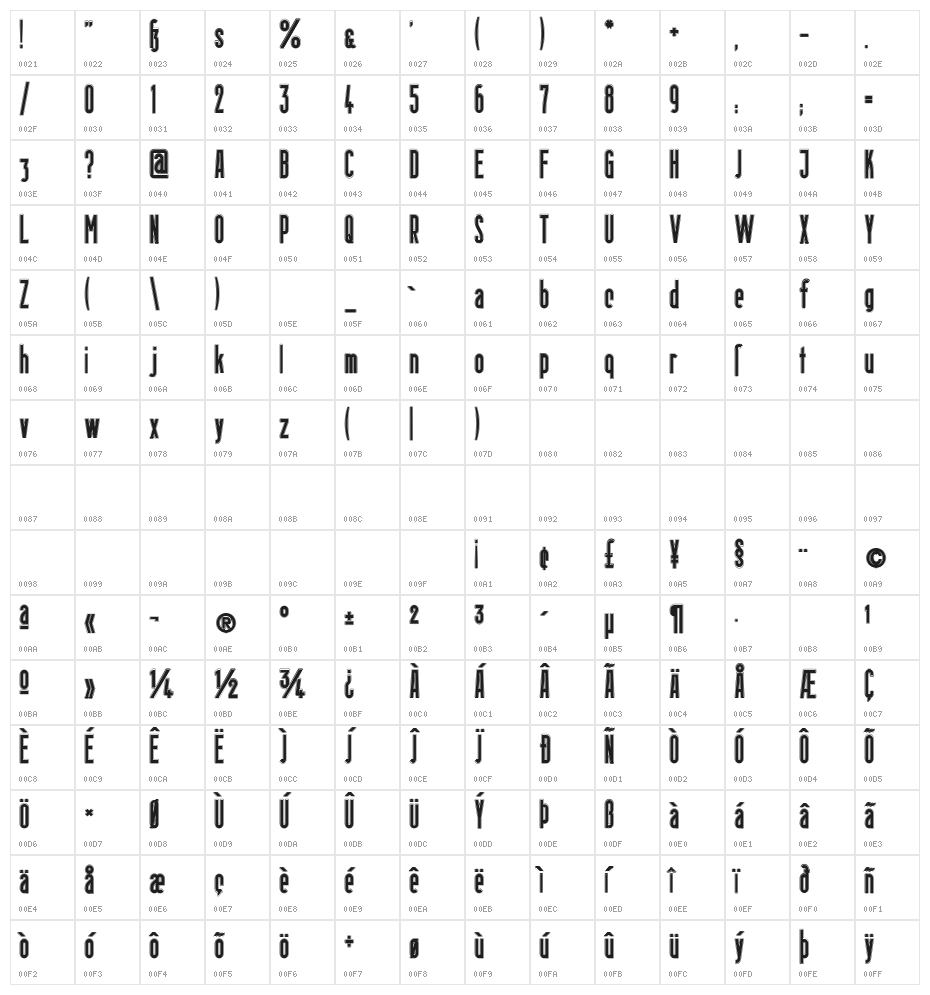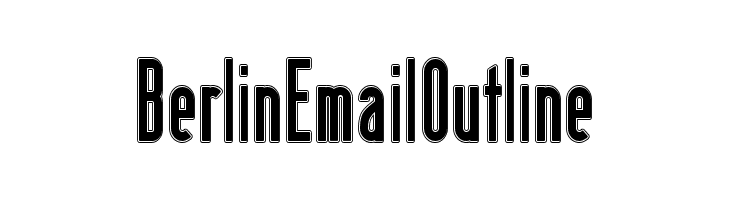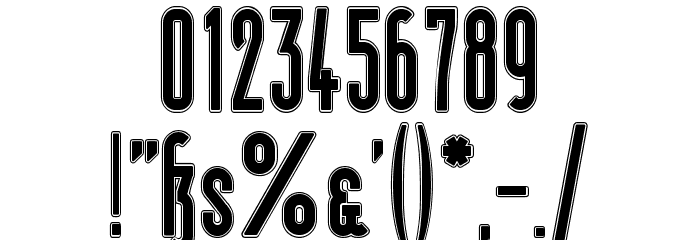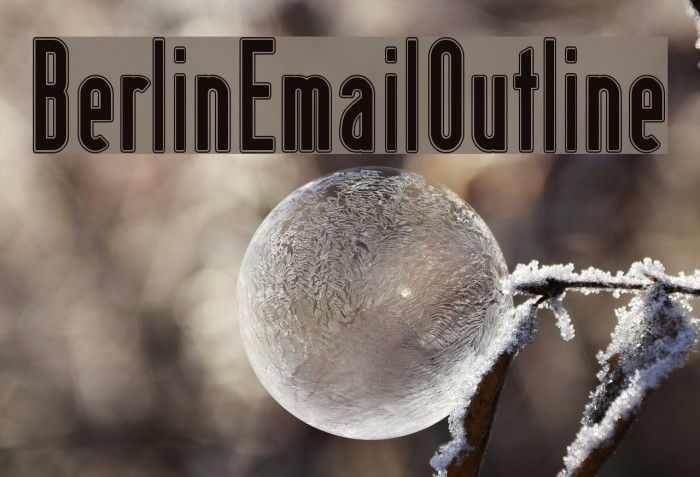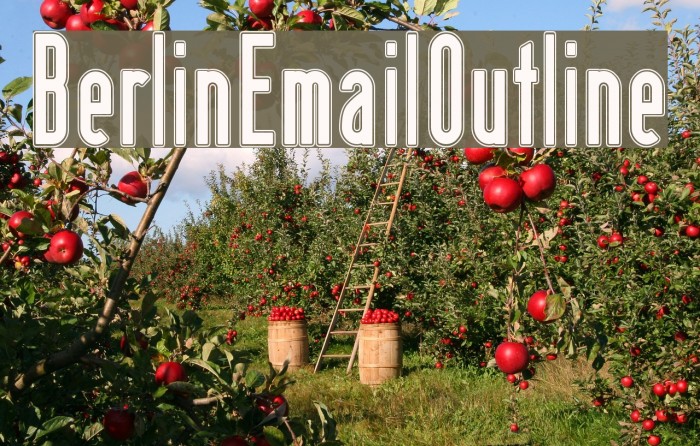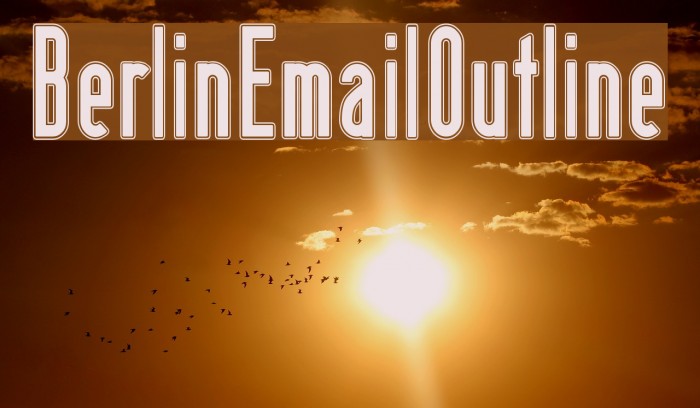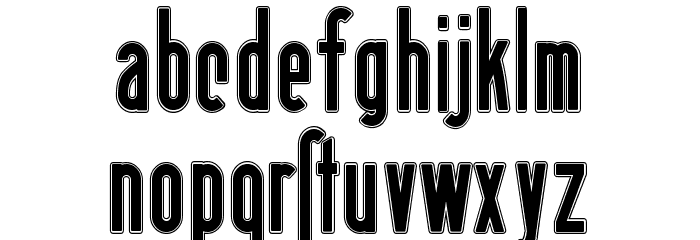
Berlin Email Outline Font
Berlin Email Outline Description
This font features a bold, outlined style that combines modernity with a touch of retro flair. The uppercase letters are tall and narrow, with a consistent stroke width that gives them a strong, impactful presence. The lowercase letters maintain the same bold outline, providing a cohesive look across different text cases. Numbers and special characters are designed with the same attention to detail, ensuring they stand out while remaining legible. The font's outline effect adds depth and dimension, making it ideal for eye-catching designs. Its clean lines and geometric shapes contribute to a contemporary aesthetic, while the outlined style offers a unique twist that sets it apart from traditional fonts.
| Proposed Projects | This font is perfect for poster designs, branding projects, and headlines where a strong visual impact is desired. It can also be used in digital media, such as website headers or social media graphics, to draw attention and convey a sense of modernity. |